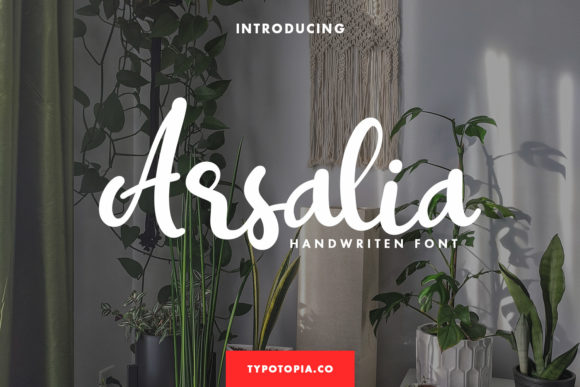
The Enchanting Arsalia Font: Elevate Your Designs with Elegance
I’ll never forget the time I was working on a wedding invitation project, and my client asked for a font that would make their special day feel like a fairytale. I scoured the internet, tried countless fonts, but nothing seemed quite right. That was until I stumbled upon Arsalia, a cursive and graceful script font that stole my heart. In this article, I’ll share my love for Arsalia, its features, and how to make the most of it in your designs.
An Honest Review of Arsalia Font
What I Love About Arsalia ✨
- 💃 Elegant and cursive, perfect for wedding invitations, stationery, and social media posts
- 🎨 Versatile and works well with various design styles and color schemes
- 💻 OpenType features, glyphs, and stylistic alternates for added creativity
- ⚠️ Limited use of uppercase letters, but this adds to its elegant and handwritten feel
- 🤔 May not be the best fit for body text or lengthy content, but perfect for headings and titles
The Story Behind Arsalia Font
Arsalia was designed by a team of typographers who wanted to create a font that would evoke the elegance and sophistication of handwritten calligraphy. Inspired by classic script fonts, they crafted Arsalia with attention to detail and a passion for beauty. The result is a font that is both timeless and modern, perfect for designers and crafters who want to add a touch of elegance to their work.
Q: What is the best way to use Arsalia font?
A: Arsalia is perfect for headings, titles, and short text, such as wedding invitations, stationery, and social media posts.
Q: Is Arsalia a difficult font to read?
A: No, Arsalia is highly legible, even at smaller font sizes, making it perfect for a variety of design applications.
Q: Can I use Arsalia with other fonts?
A: Yes, Arsalia pairs well with many fonts, but try to balance it with a clean and simple font to avoid visual overload.